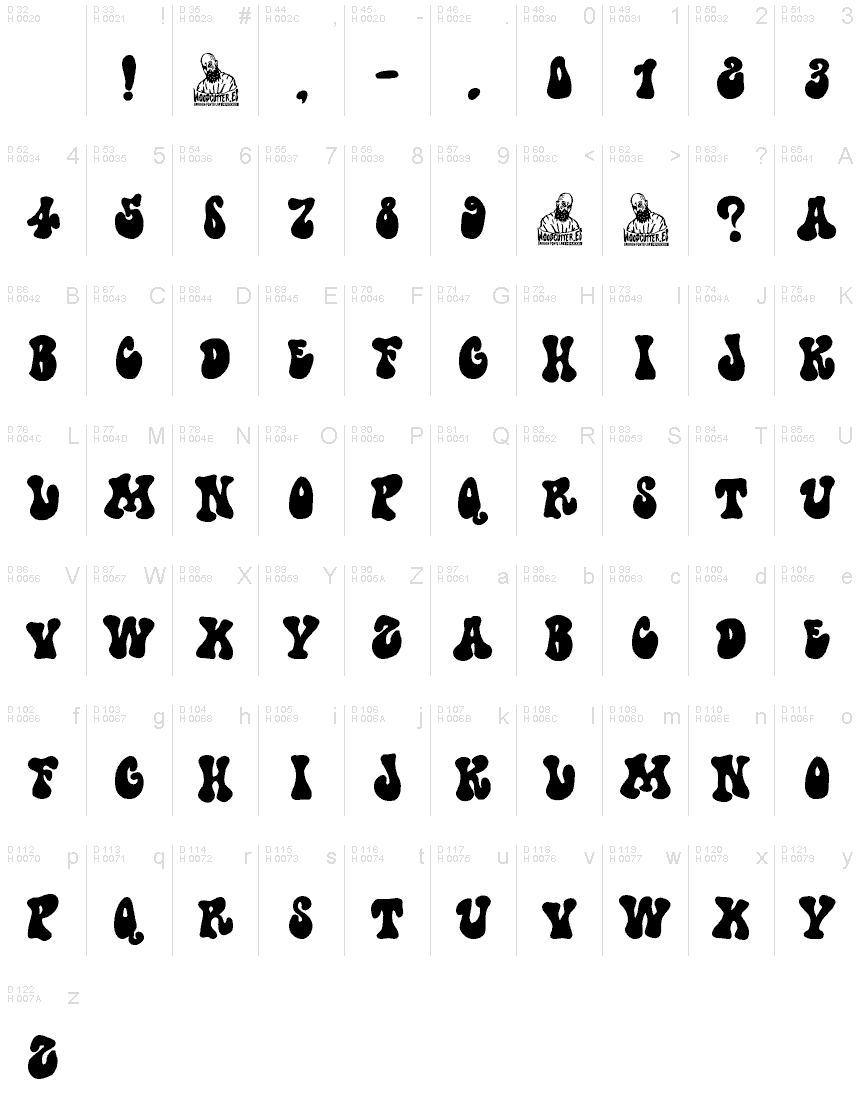
Doctor Hofmann
Doctor Hofmann font, by Woodcutter, is a bold display typeface that embodies whimsical and expressive vibes from the past. Groovy and retro, its organic shapes and condensed structure lend it almost psychedelic traits that make it extremely catchy to viewers. Let Doctor Hofmann add a unique typographic touch to your personal or professional design projects.